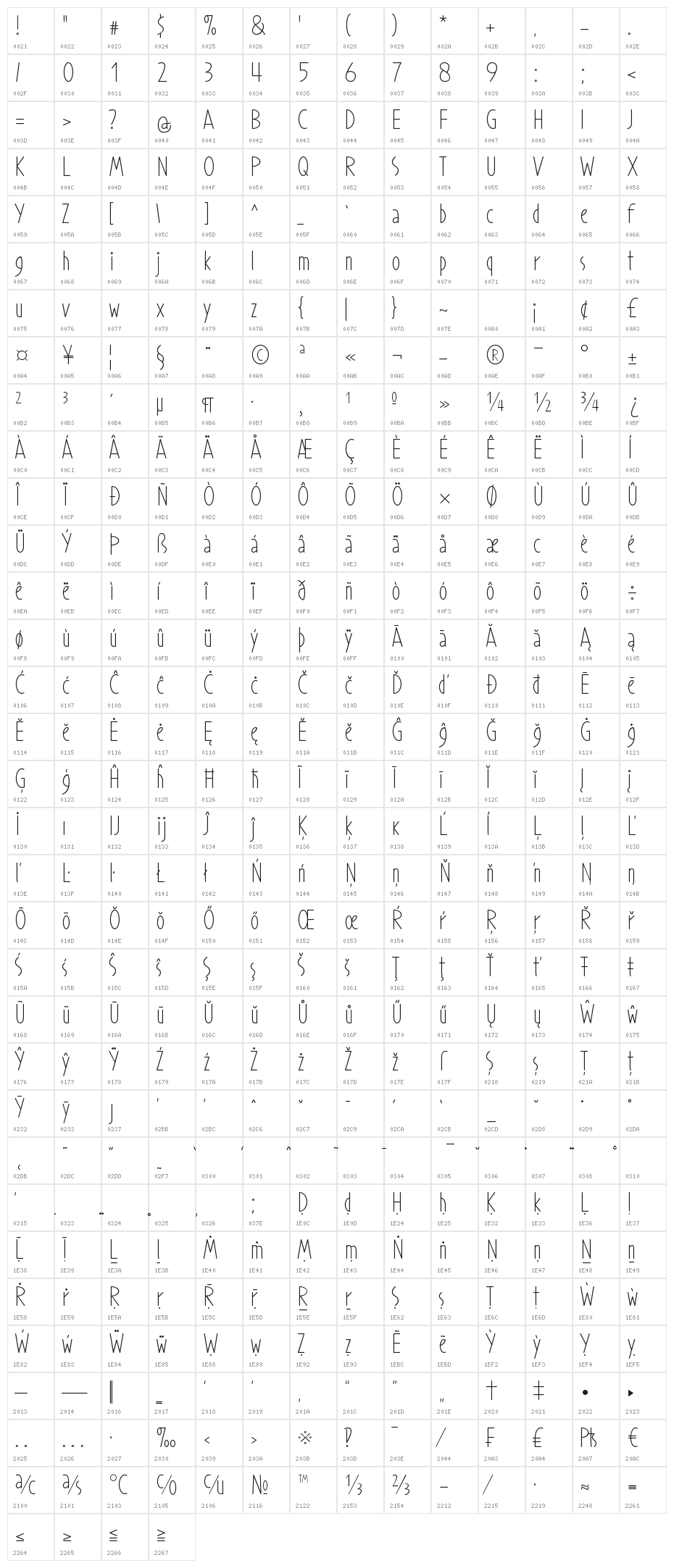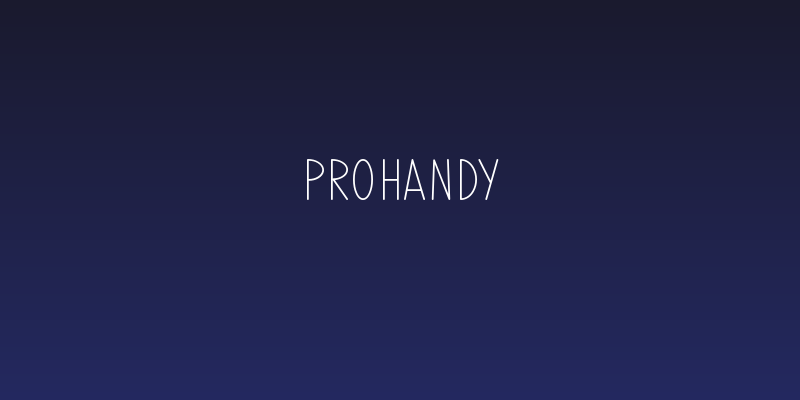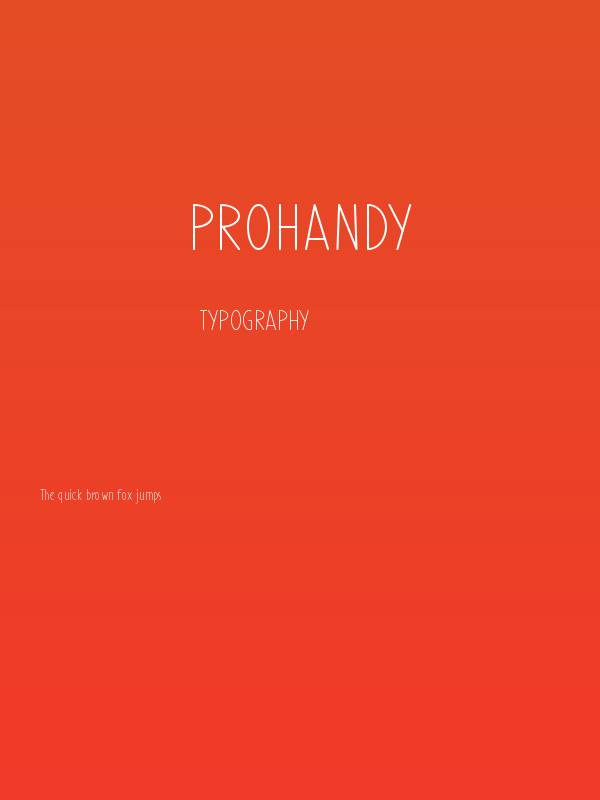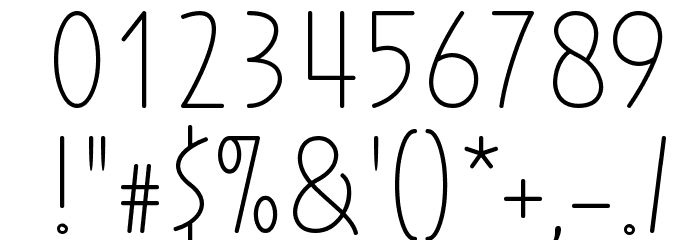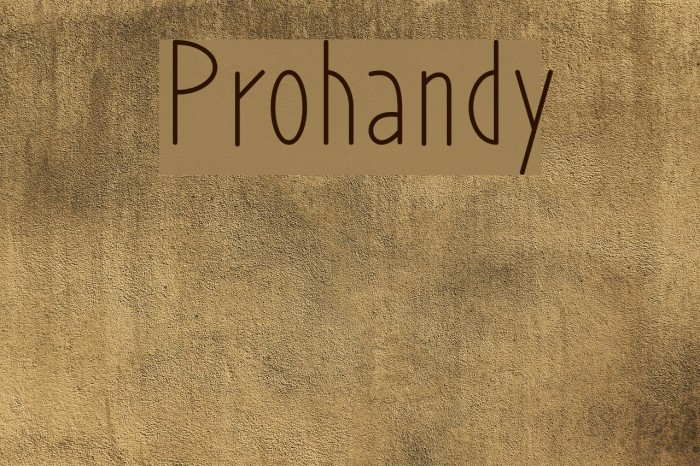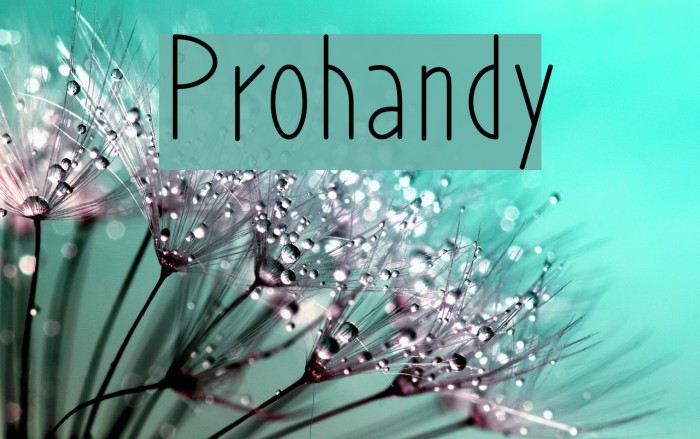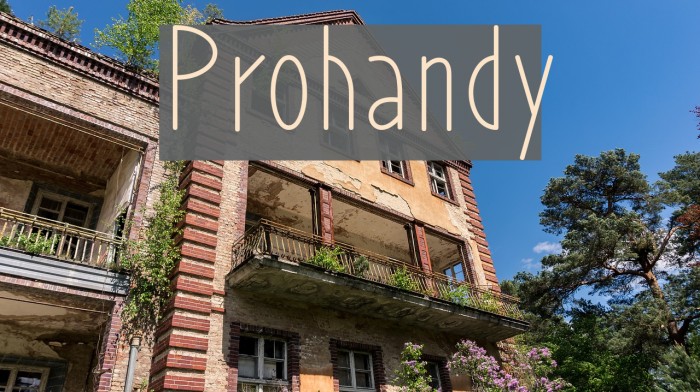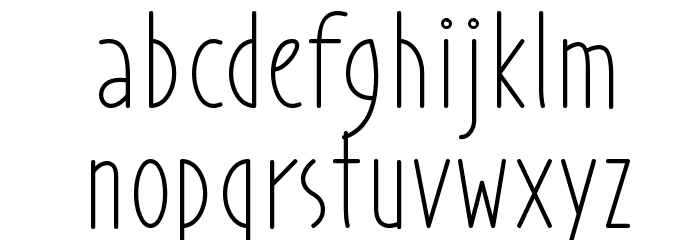
Prohandy Font
Prohandy Description
This font features a clean and modern design with tall, narrow letters that exhibit a slight curvature, giving it a friendly and approachable appearance. The uppercase letters are uniform in height, while the lowercase letters maintain a consistent baseline with some playful variations in ascenders and descenders. The numerals are clear and legible, matching the overall style of the alphabet. Special characters are well-integrated, maintaining the font's cohesive look. The thin strokes and minimalistic design make it suitable for a variety of applications, offering a contemporary and elegant feel.
| Proposed Projects | Ideal for branding, invitations, modern web design, and minimalist posters. |